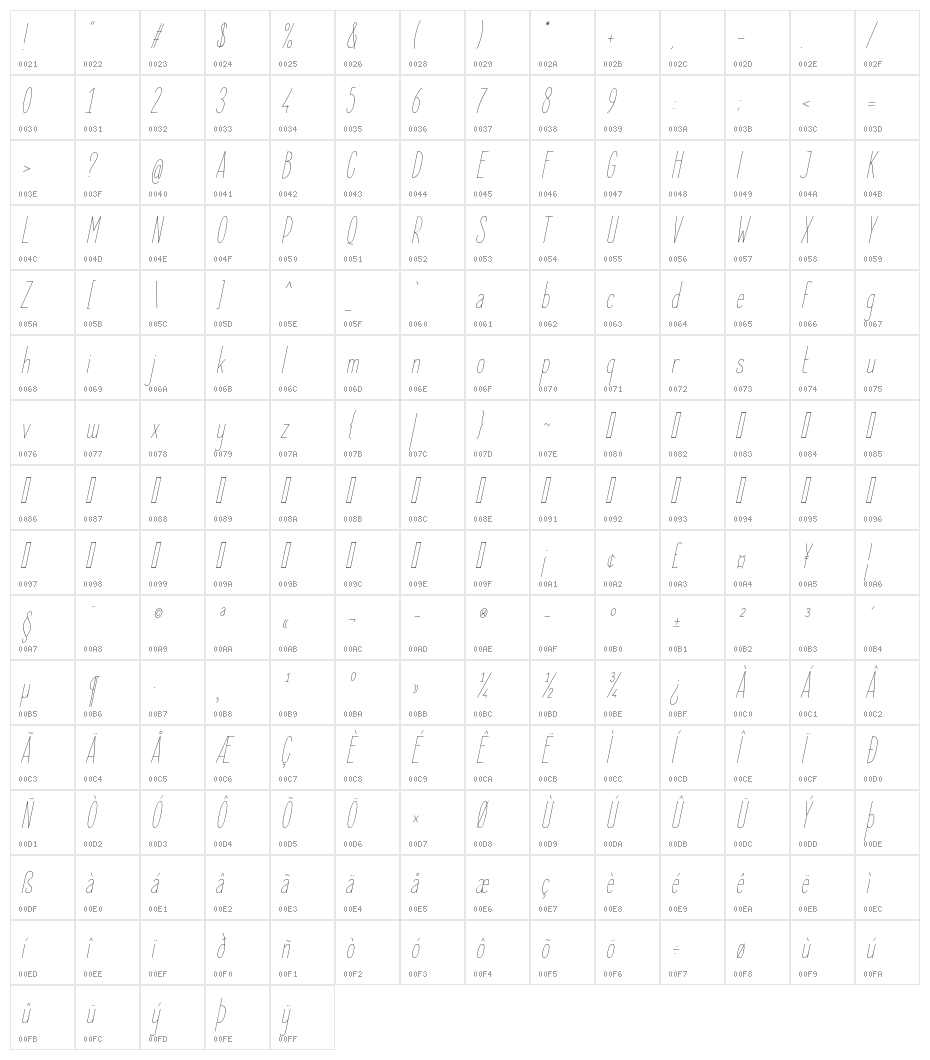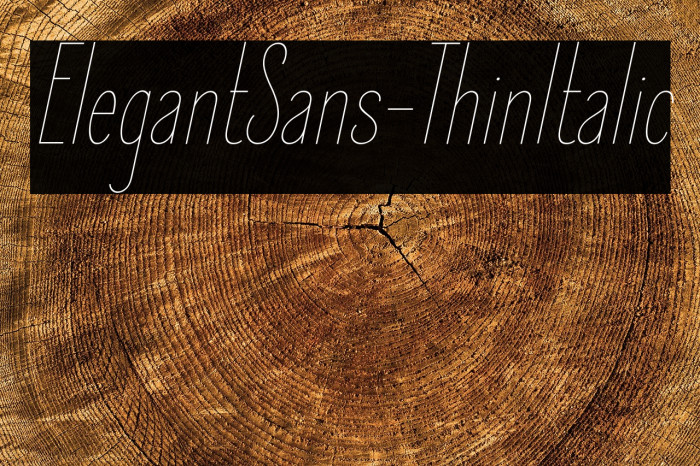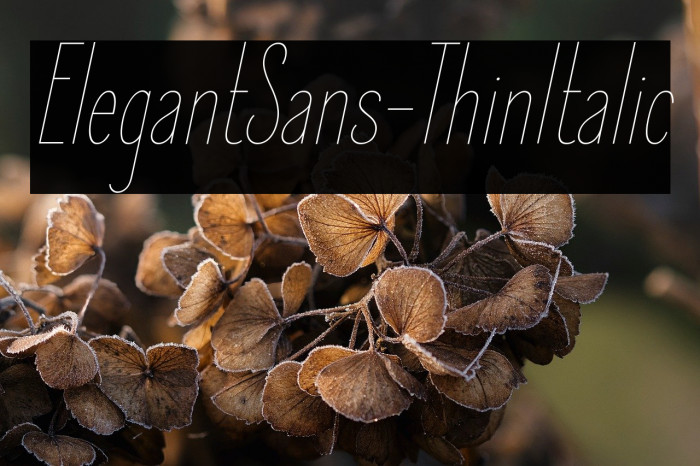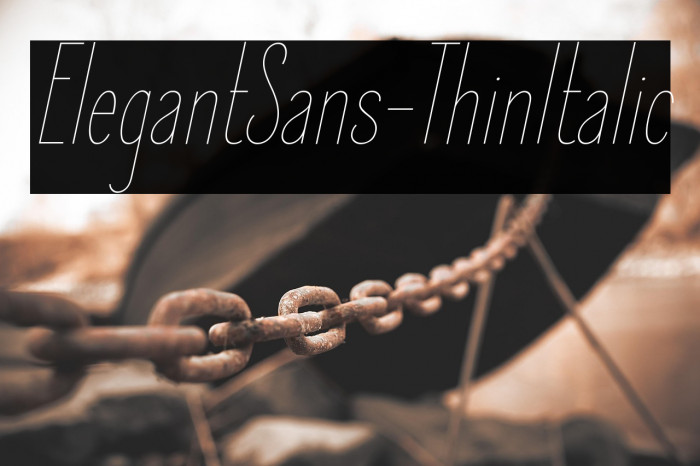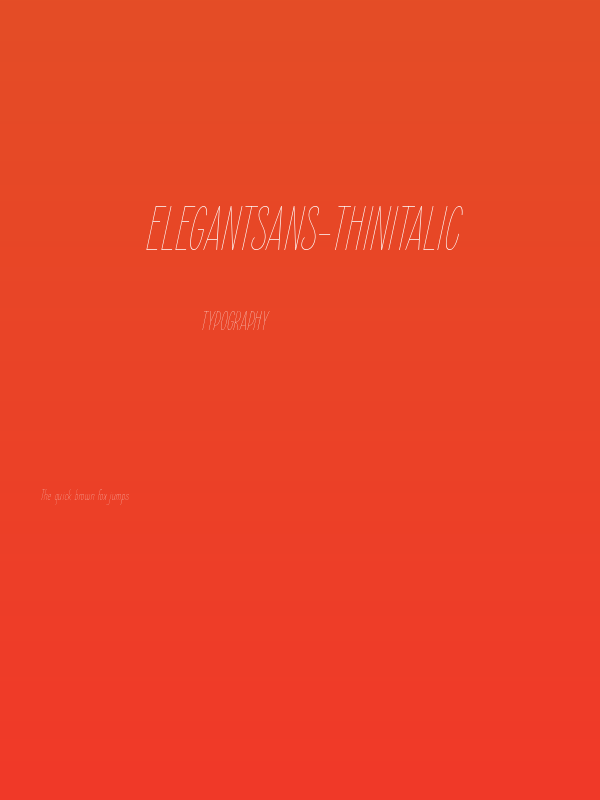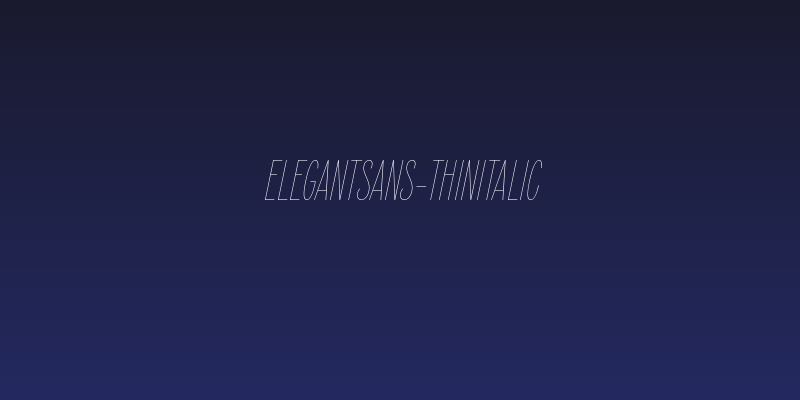
ElegantSans-ThinItalic Font
ElegantSans-ThinItalic Description
This font exudes elegance with its thin, elongated letterforms and subtle italic slant. The characters are sleek and refined, offering a modern and sophisticated appearance. The uppercase and lowercase letters maintain a consistent style, with smooth curves and clean lines that enhance readability. Numbers and special characters are designed with the same attention to detail, ensuring a cohesive look across all elements. The thin strokes and gentle slant give it a delicate yet contemporary feel, making it suitable for a variety of design applications.
| Proposed Projects | Ideal for fashion magazines, luxury branding, wedding invitations, and high-end product packaging. |